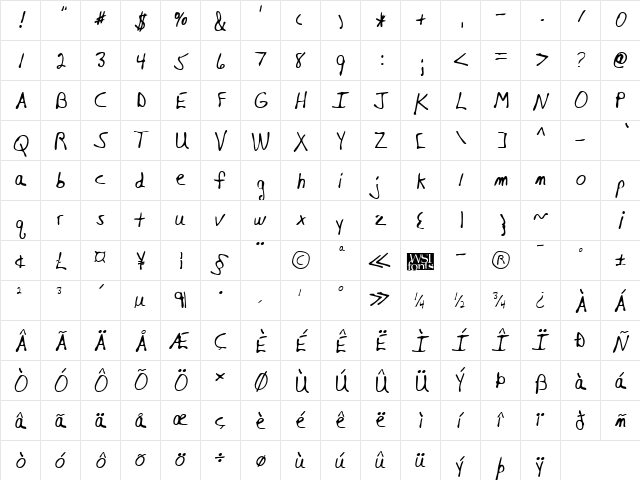
HershelsHand Regular
Design Context for HershelsHand Typeface
HershelsHand flows with the natural rhythm of handwritten lettering, making it ideal for designs that call for warmth and personal expression.
Font Pairing: Combine HershelsHand with a simple geometric sans for maximum contrast — the tension between flowing curves and clean structure is a classic typographic pairing.
Pro Tip: Pair HershelsHand with a clean sans-serif for supporting text. The contrast between fluid script and geometric structure creates an elegant typographic hierarchy.